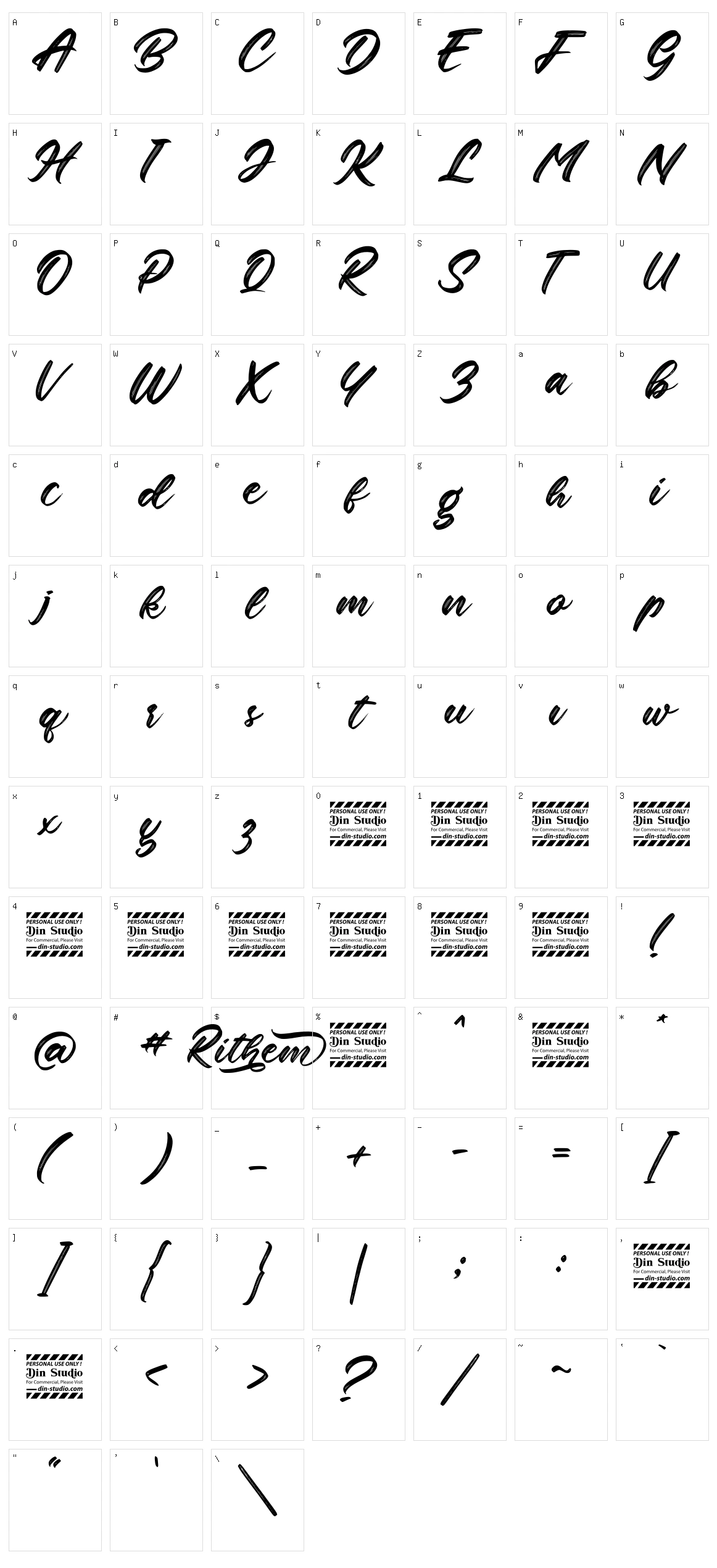
The free font Rithem is carefully designed by Din Studio, showcasing a thoughtful balance of creativity and usability and falls under the Script font style. When you download the ZIP file, it contains only 1025.02 KB of font files, making it lightweight and quick to download. Please review the license details below to understand permitted usage and distribution rights. If license information is not available, we recommend using this font for personal projects only or contacting the author directly for commercial usage permissions.